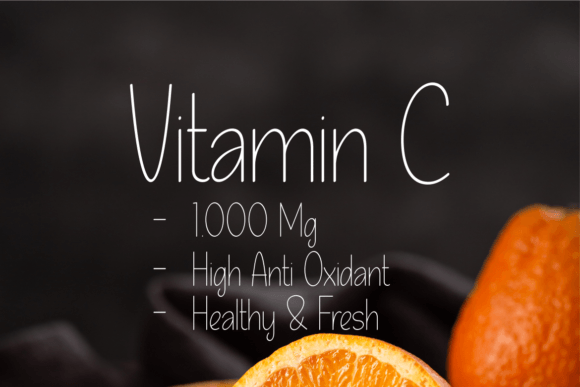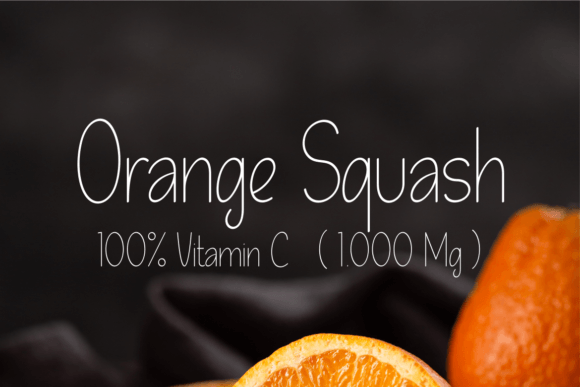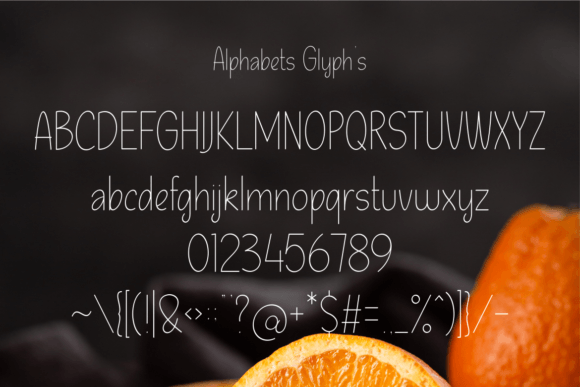
Introduction to Cephine Font
Remember that moment when you were brainstorming ideas for your latest creative project and you needed the perfect font to bring it all together? The one that would elevate your design and make it stand out from the crowd? For many designers, finding that elusive perfect font can be a challenge, but we’re excited to introduce you to a game-changer: the Cephine Font.
This elegant and modern sans serif font is a design resource like no other. With its minimalist and clean vibe, Cephine Font is perfect for a wide range of projects, from book covers and magazines to social media posts and invitations. Whether you’re looking for a high-quality font to download for free or a versatile design element to add some visual interest to your work, Cephine Font has got you covered.
Key Features of Cephine Font
- Unique, elegant design with a touch of sophistication, perfect for creative projects and design resources.
- High-quality font with a transparent background, allowing for seamless integration into various design elements.
- Perfect for use in logos, typography, and other design elements where a touch of elegance is required.
Honest Review: Cephine Font
One of the standout features of Cephine Font is its high quality design. The font is incredibly detailed and versatile, making it suitable for a wide range of creative projects. Whether you’re designing a logo, brochure, or website, Cephine Font is sure to add a touch of sophistication and elegance.
Here are some of the things that work well with Cephine Font:
- ✨ High-quality design with intricate details
- ✨ Versatile and suitable for a variety of creative projects
- ✨ Transparent background makes it easy to work with
- ⚠️ Limited character set, which may be a concern for designers who need a wide range of characters
- ⚠️ May not be suitable for body text due to its ornate design
Overall, I’m impressed with Cephine Font and would recommend it to designers looking for a unique and high-quality design resource. While it may have some limitations, its free download and versatile design make it a valuable addition to any design library.
Cephine Font is commonly used in various creative projects, including:
1. Graphic design and branding.
2. Digital marketing and advertising.
3. Social media graphics and posts.